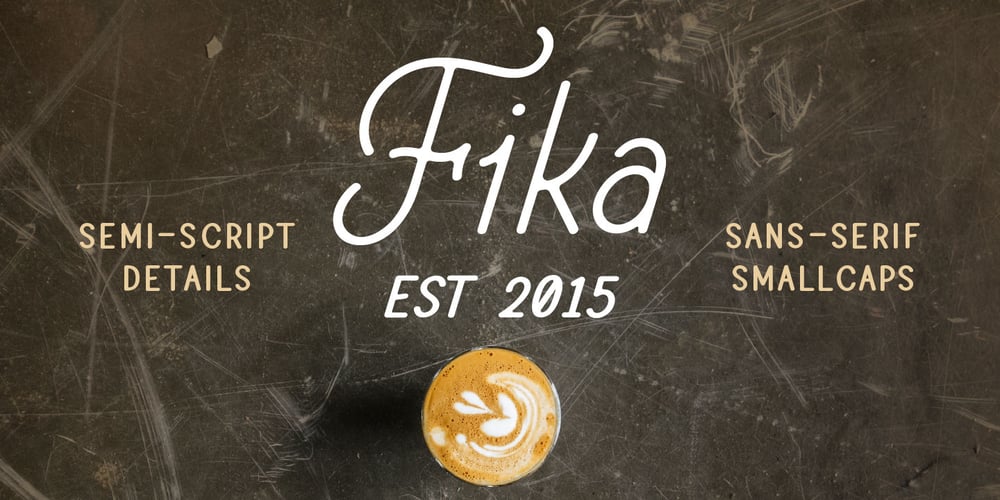
Fika
Fika font
Fika Font Family was designed by published by Ryan Keightley. Fika contains 4 styles and family package options. Fika is a warm and fresh semi-script font inspired by the feeling of a friendly local café. Appropriate for restaurants, packaging, web design, and anything in between, Fika will give a human touch to any project with its rounded edges and subtle, calligraphic weight variations. Italic is particularly nice for the swooping arcs and scriptlike flourishes of the capital letters. Fika includes a variety of accents for international languages, a small selection of swashes for a little extra flair, and a unique set of sans-serif smallcaps (in A-Z and 0-9) for supporting copy.